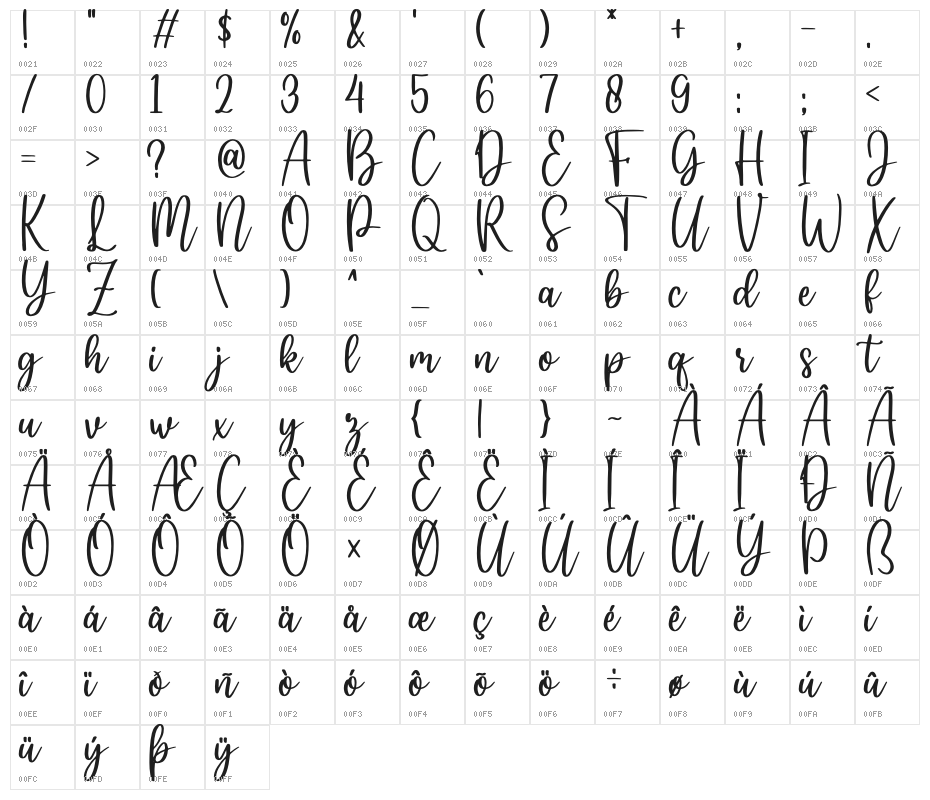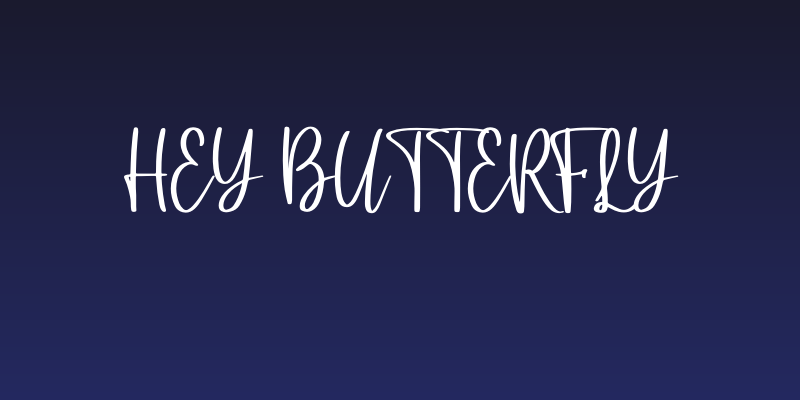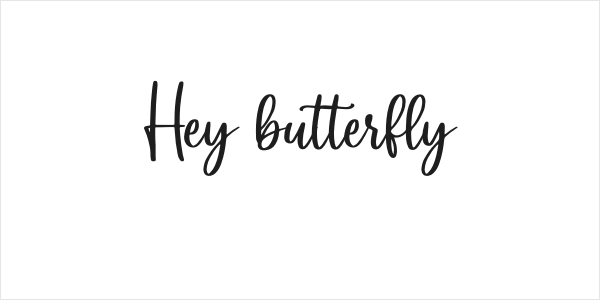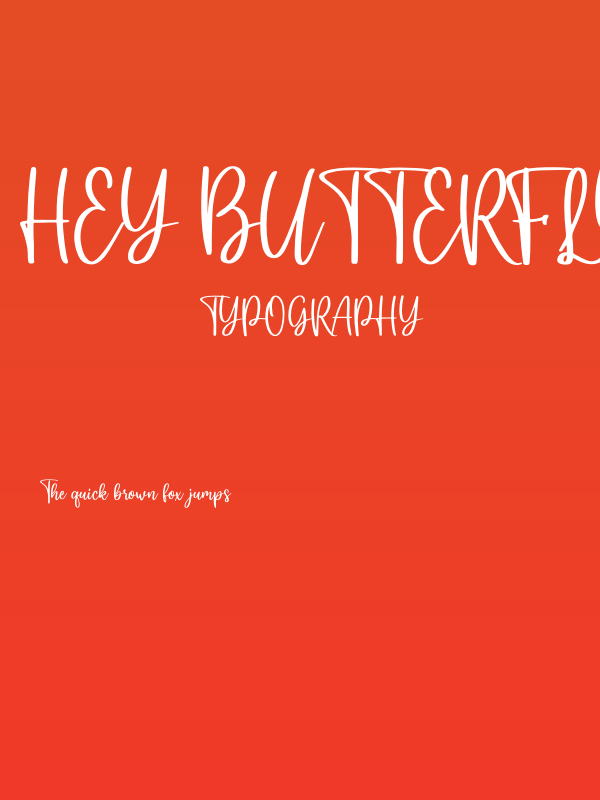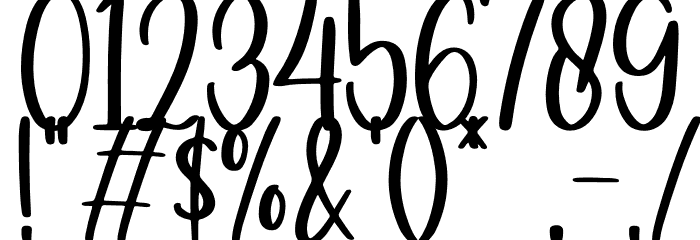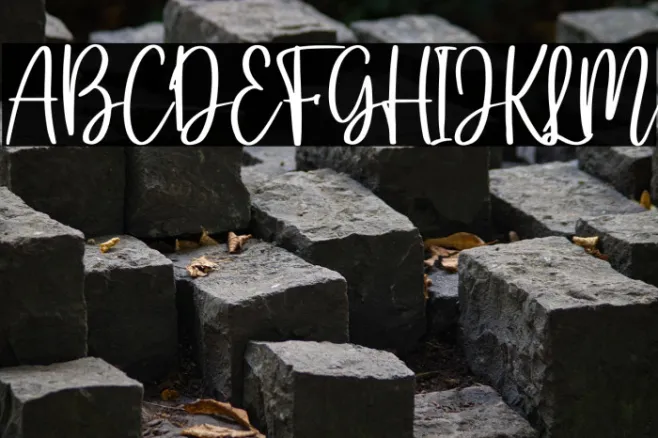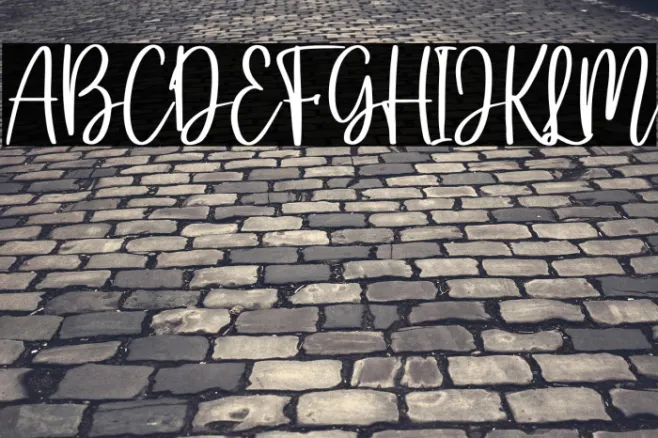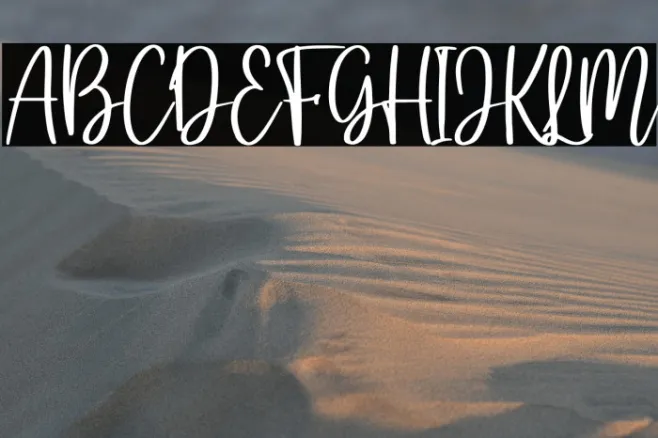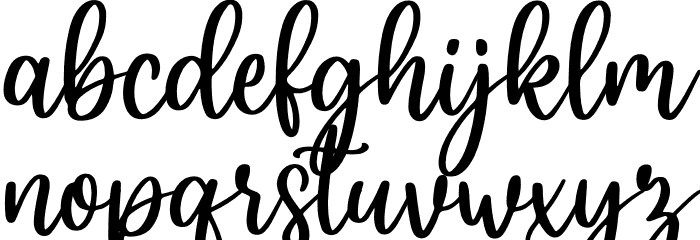
Hey butterfly Font
Hey butterfly Description
This font features a lively and expressive handwritten style, characterized by its flowing, cursive letters. The uppercase letters are tall and elegant, with a slight slant that adds a dynamic feel. The lowercase letters are more rounded and connected, enhancing the script-like appearance. The numerals maintain the same playful and fluid style, ensuring consistency throughout. Special characters are designed with the same attention to detail, making them seamlessly integrate with the rest of the font. The overall look is both modern and whimsical, perfect for adding a personal touch to any project.